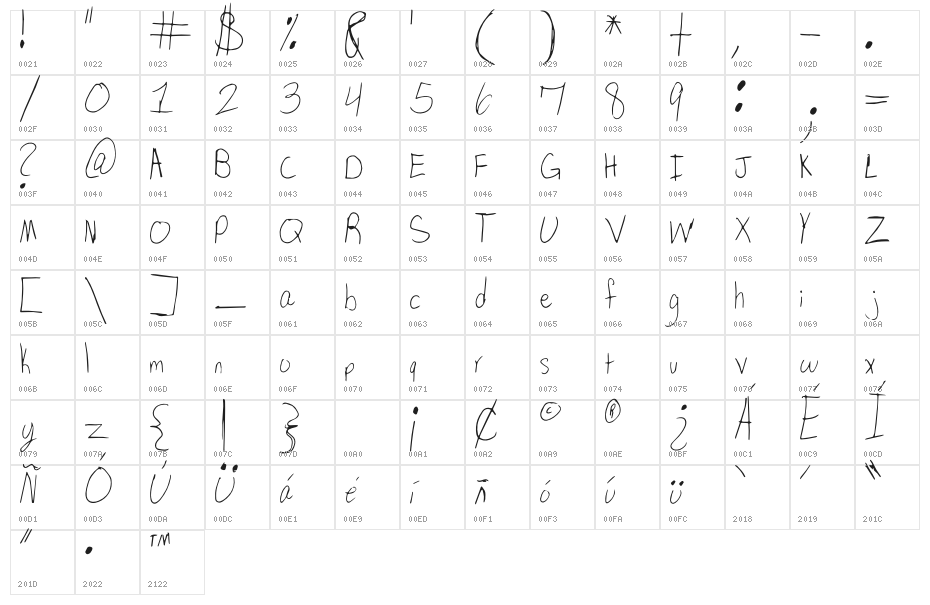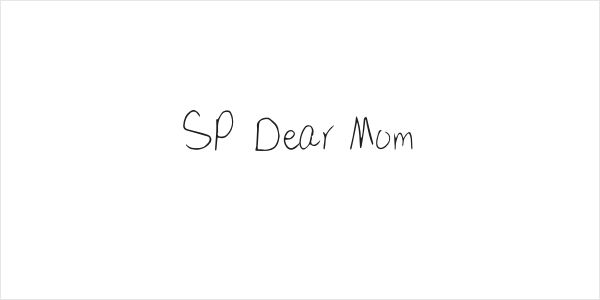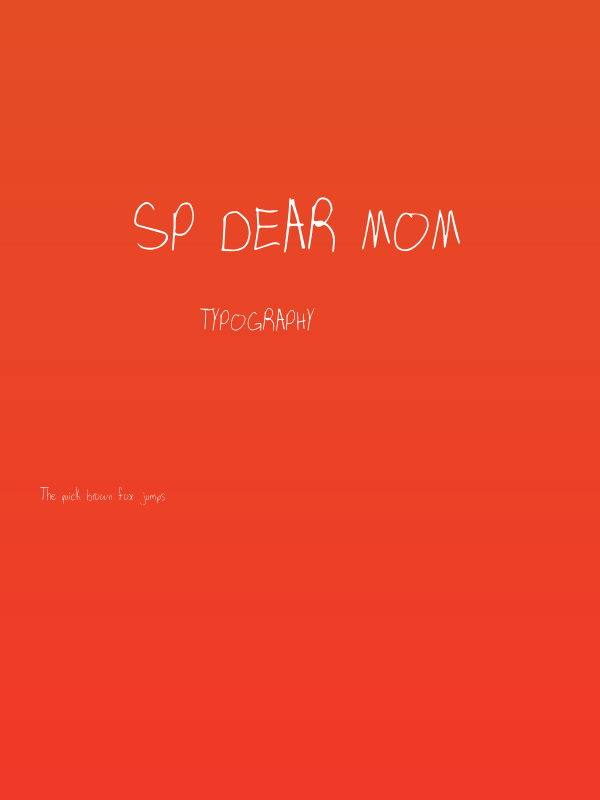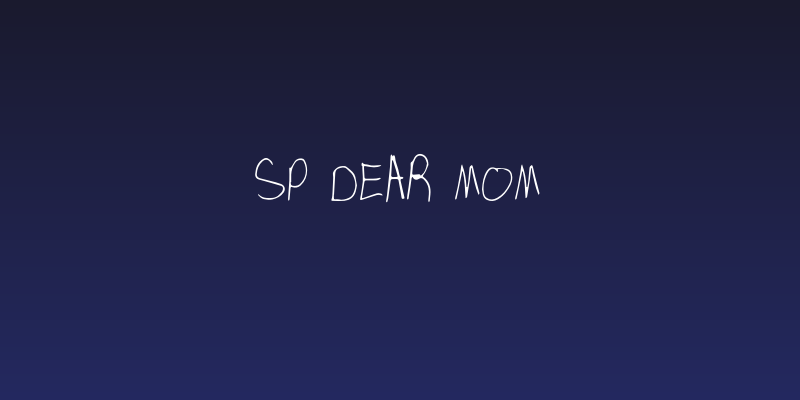
SP Dear Mom Font
SP Dear Mom Description
This font exudes a playful and casual handwritten style, characterized by its irregular and organic letterforms. The strokes are uneven, giving it a personal and informal touch, reminiscent of a note hastily jotted down. The uppercase letters are bold and slightly larger than the lowercase, maintaining a consistent flow throughout. The numbers and special characters follow the same whimsical style, adding to the font's charm. Its unique personality makes it stand out, perfect for projects that require a touch of individuality and warmth.
| Use Case | Greeting cards, Personal notes, Creative projects |
| Proposed Projects | Ideal for greeting cards, personal letters, children's books, and creative projects that require a personal touch. |